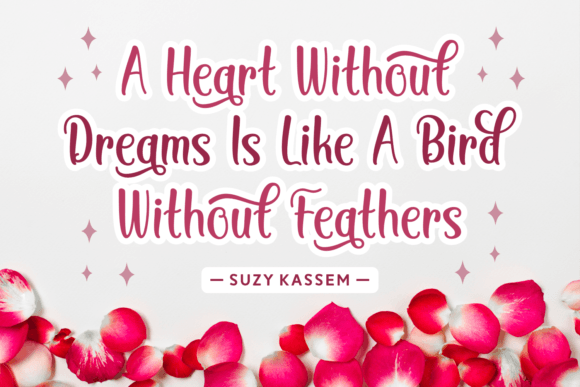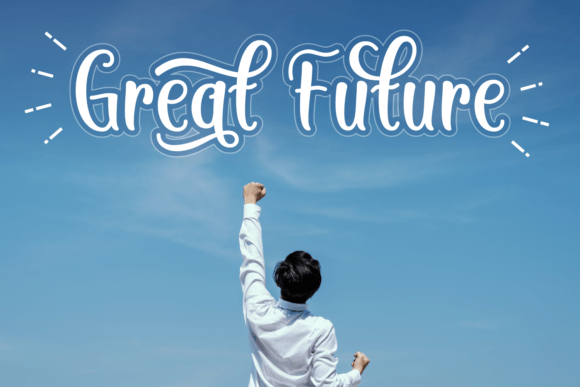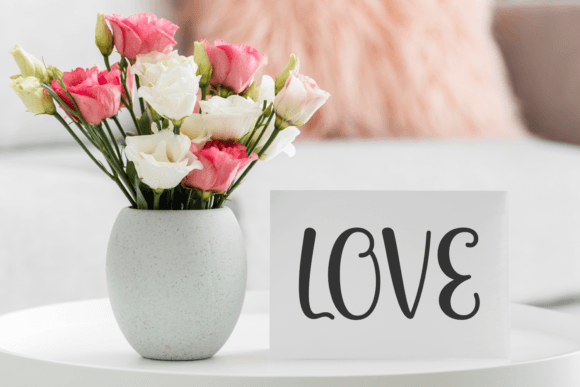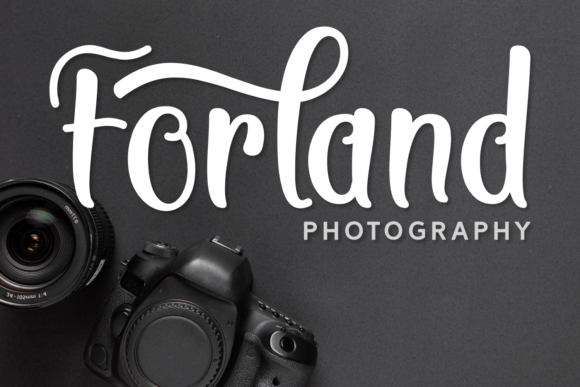
Introduction to Locyta Font
Locyta is a stylish script font with beautiful swashes.
Add a romantic touch to your typography designs with this lovely typeface It looks stunning on invitations, fabric prints, quotes, cards, logos, and many more.
Key Features of Locyta Font
Why Choose Locyta Font?
Locyta Font offers exceptional quality and versatility, making it a valuable addition to your design toolkit. Whether you’re creating for personal projects or commercial use, Locyta Font delivers professional results.